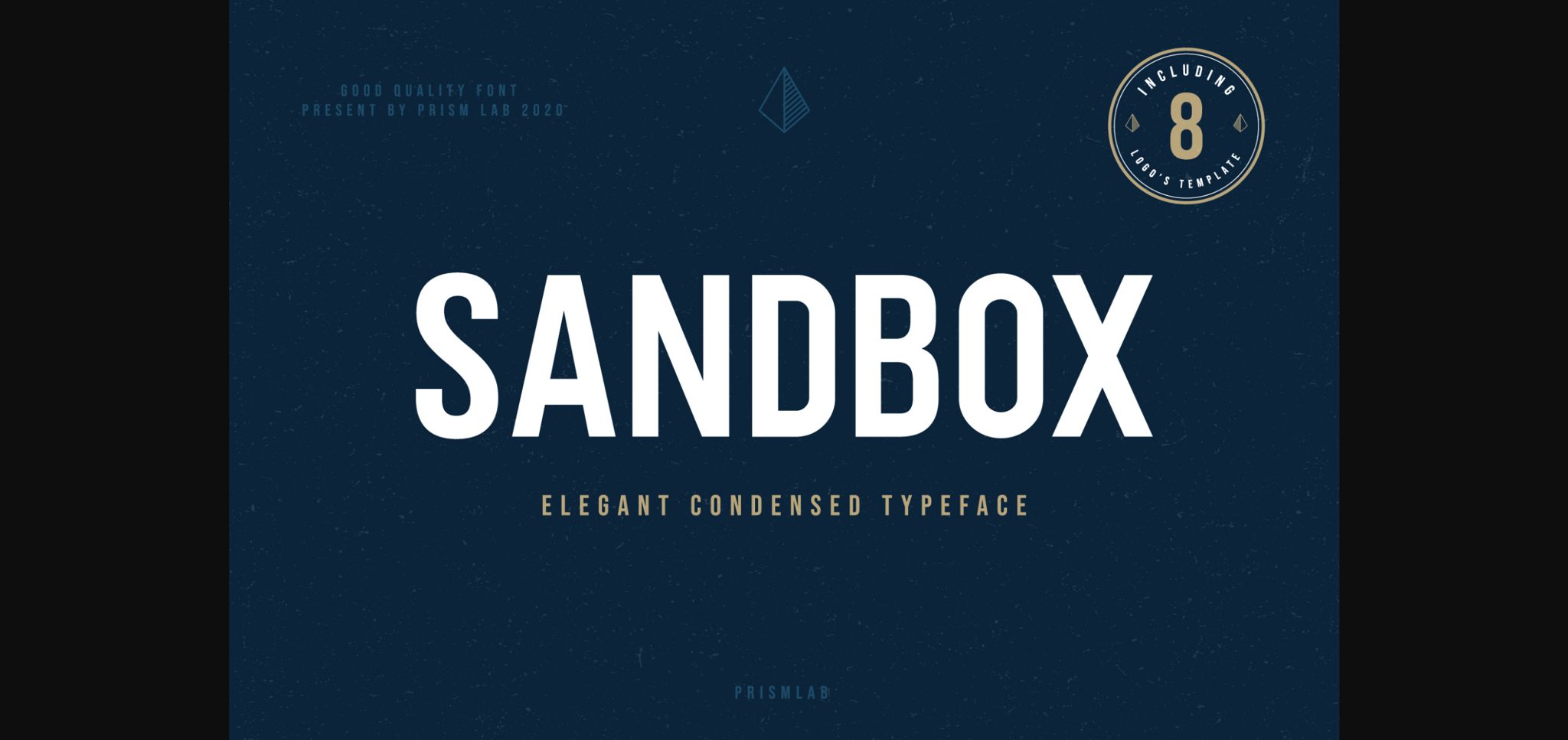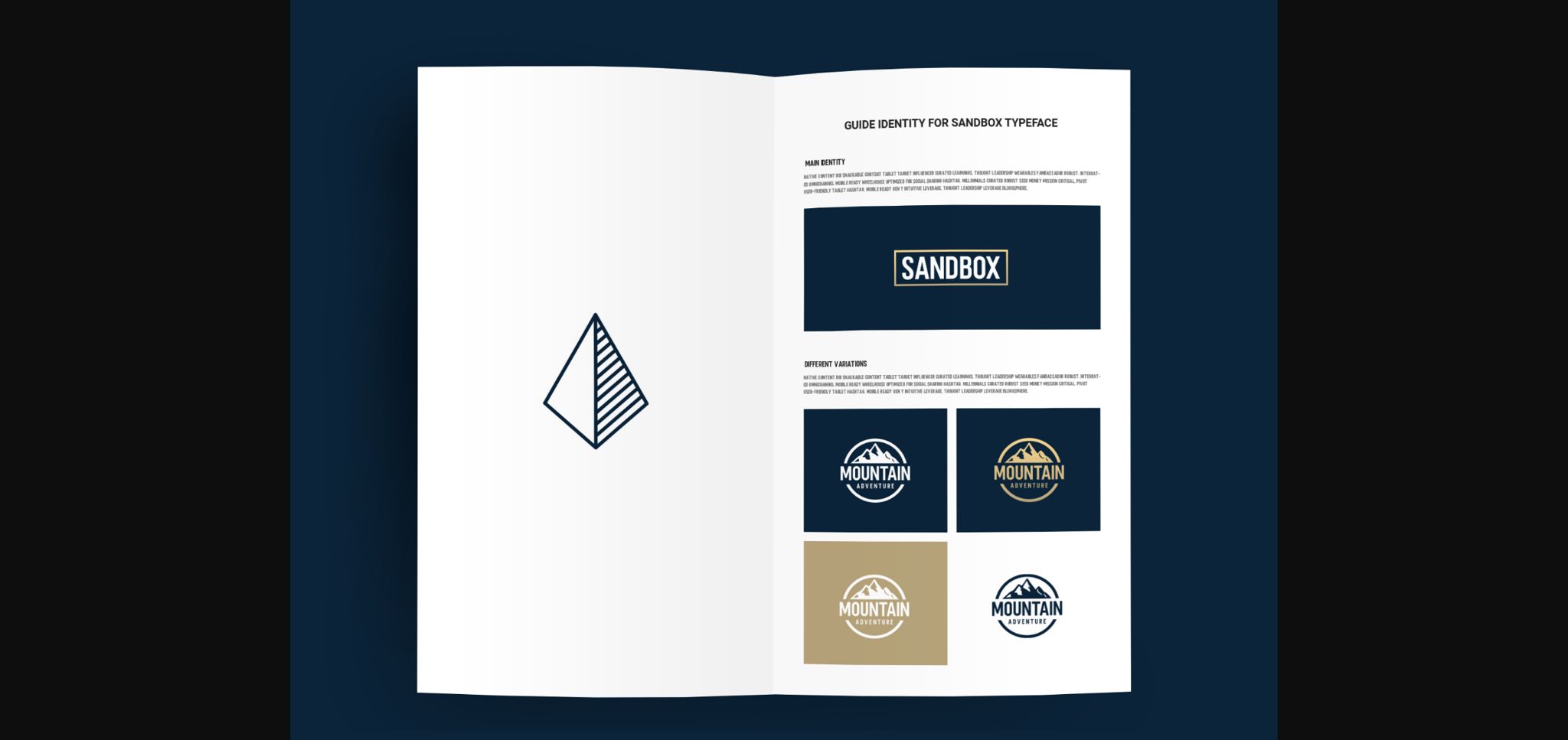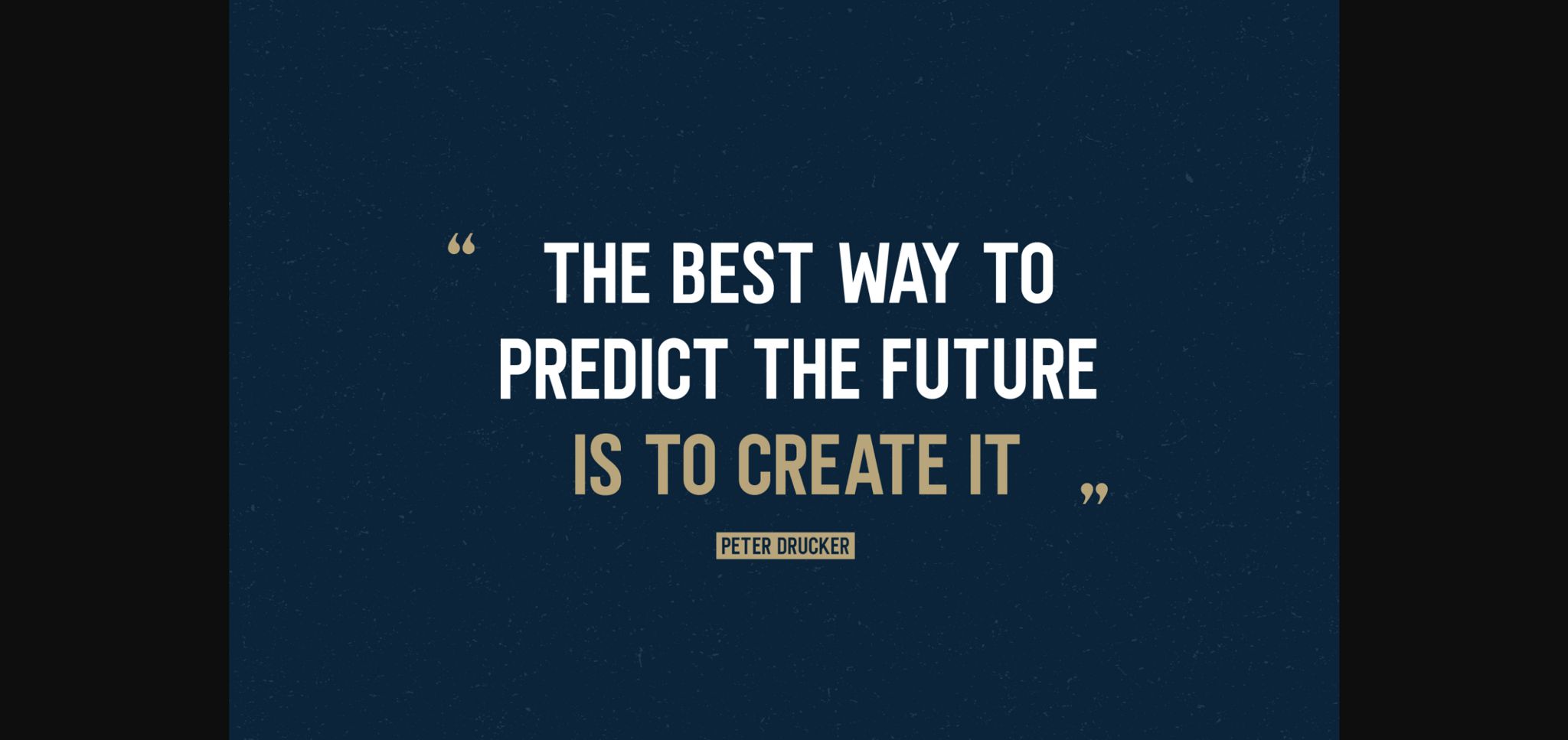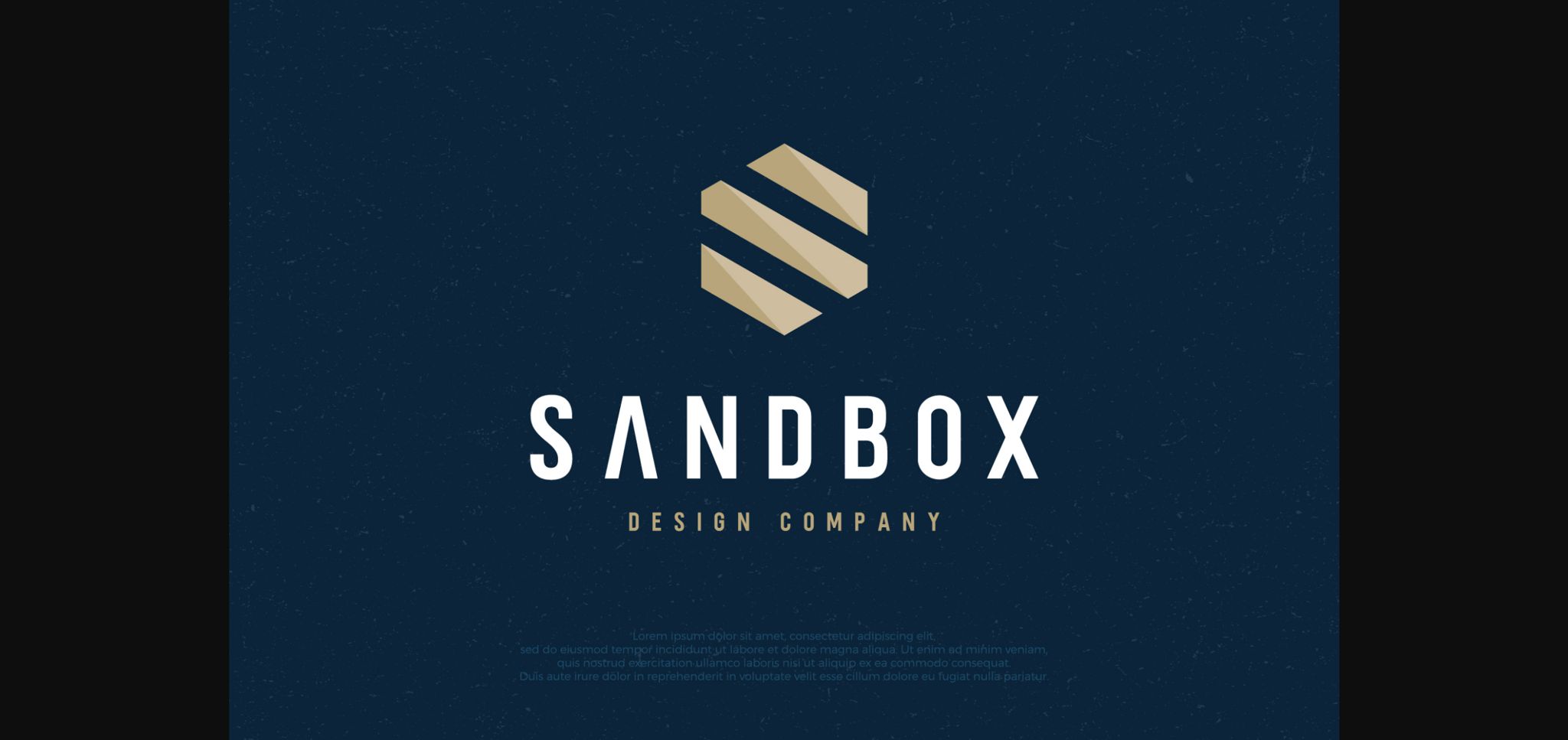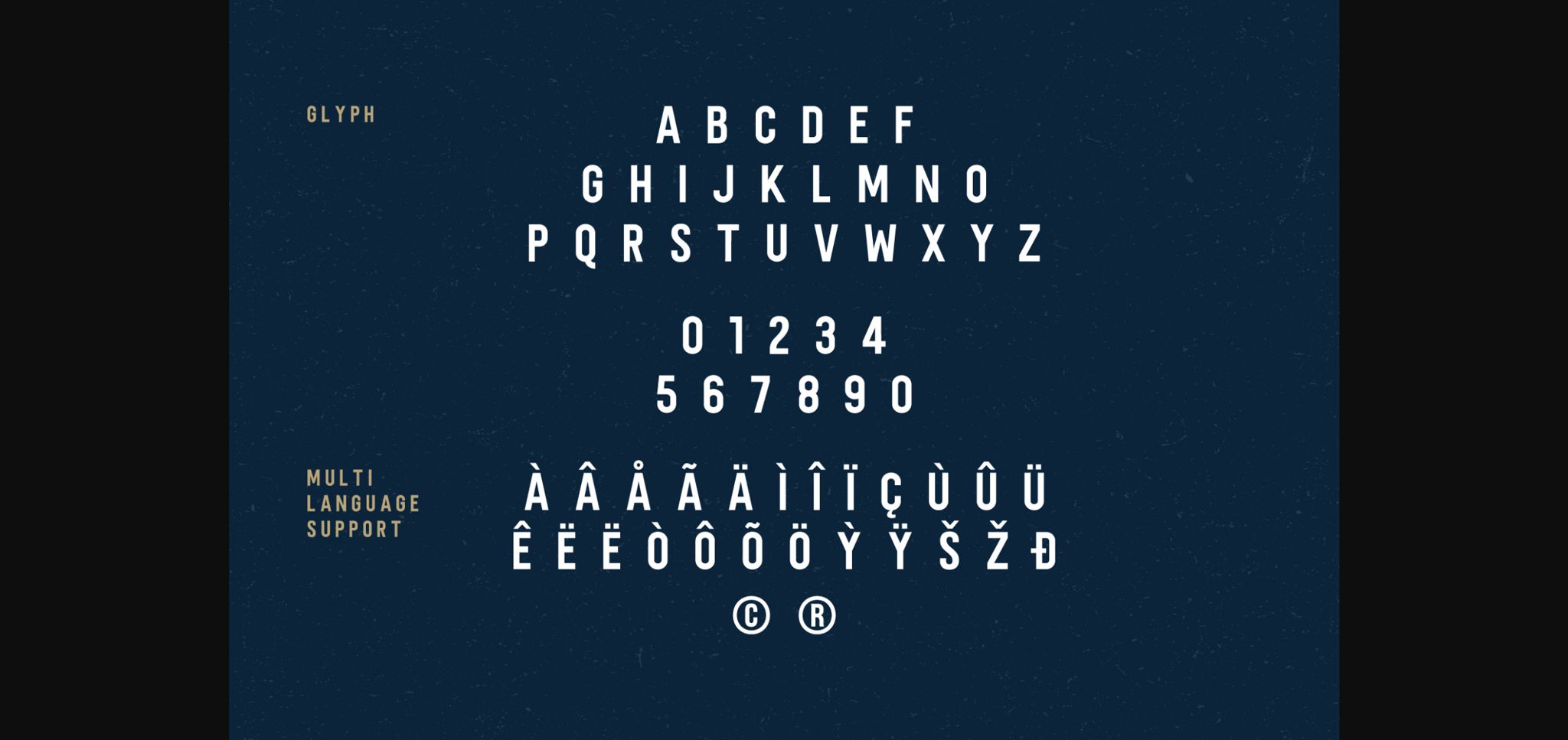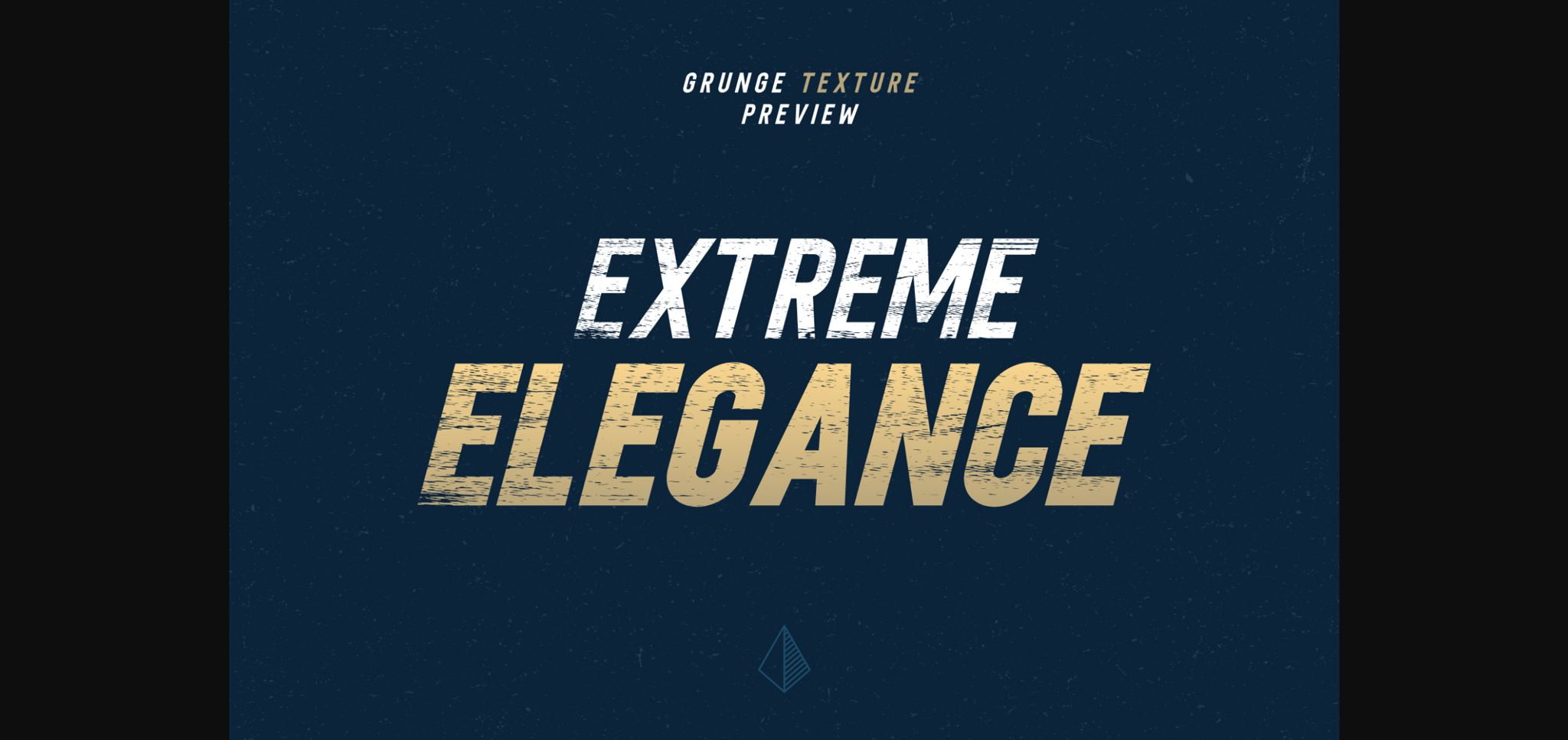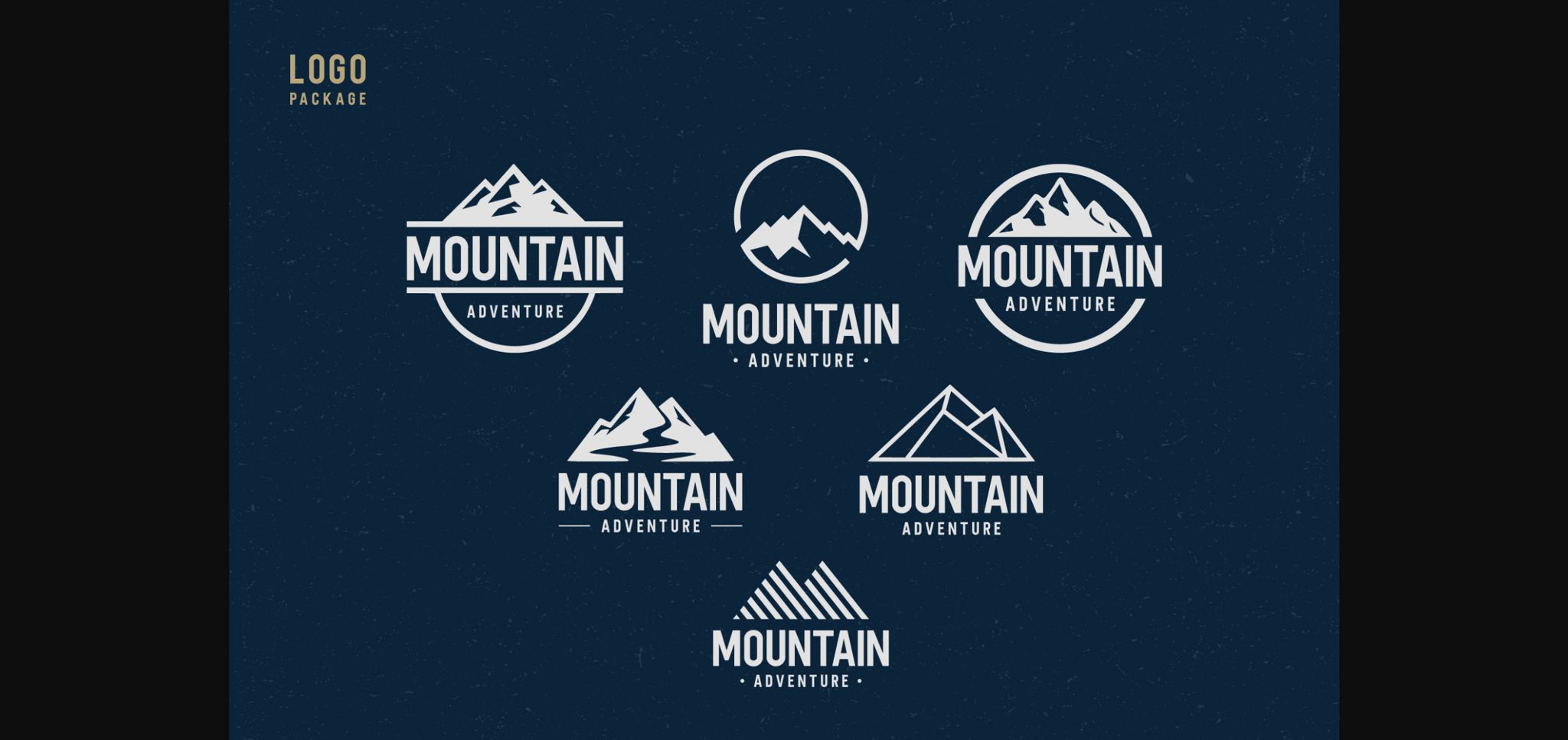
HomeSans Serif FontsSandbox Font Sans Serif Fonts Sandbox Font FacebookXPinterestWhatsApp 1 of 11 ... Sandbox Font Poster 2... Sandbox Font Poster 3... Sandbox Font Poster 4... Sandbox Font Poster 5... Sandbox Font Poster 6... Sandbox Font Poster 7... Sandbox Font Poster 8... Sandbox Font Poster 9... Sandbox Font Poster 10... Sandbox Font Poster 11... About Sandbox Font Sandbox is a minimal and neat sans serif font. It can easily be matched to an incredibly large set of projects, so add it to your creative ideas and notice how it makes them stand out! DOWNLOAD NOW People also explored Mouline Font Spaced Font Rosalenna Font Millow Font Cloudglyphic Font Chalk Talks Font Mudeva Font Goldlove Font Digital Font 319 0 TagsSandboxSandbox Font Previous articleModern Deluxe FontNext articleAgrozza Font LEAVE A REPLY Cancel reply Comment: Please enter your comment! Name:* Please enter your name here Email:* You have entered an incorrect email address! Please enter your email address here Website: Save my name, email, and website in this browser for the next time I comment. Personal Use Free Color Personal Use Free Read more about this font Butter Belly Personal Use Free Read more about this font Oatmeal Personal Use Free Read more about this font Rellista Script Personal Use Free Read more about this font BLOG How to Cut Any Font on Cricut: Convert a Font to SVG (Free) Turn any font into a clean SVG so it cuts crisp on Cricut - a quick 3-step workflow using a free font-to-SVG tool. Exploring Font Trends Using Fonts in Digital Marketing: Tips to Strengthen Your Brand Identity Free Fonts Risk: Why Free Fonts Can Be Dangerous for Designers